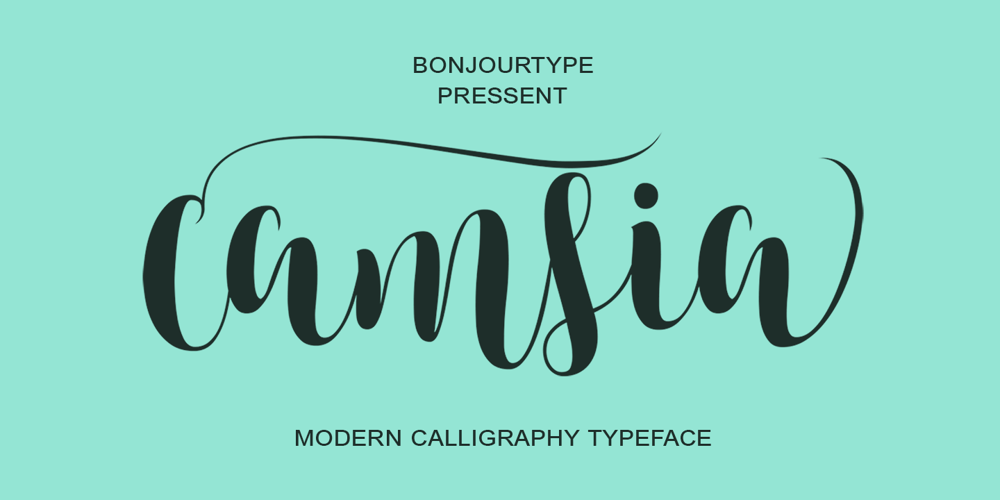
Camsia Font Family was designed by Rachma and published by BonjourType. Camsia contains 1 styles and family package options. Camsia is a distinct and flowing handwritten font. It is PUA encoded which means you can access all of the glyphs and swashes with ease! It maintains its classy calligraphic influences while feeling contemporary and fresh. Fall in love with this font and bring your projects to the highest levels!